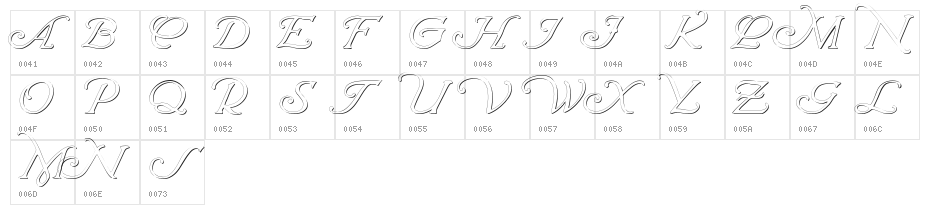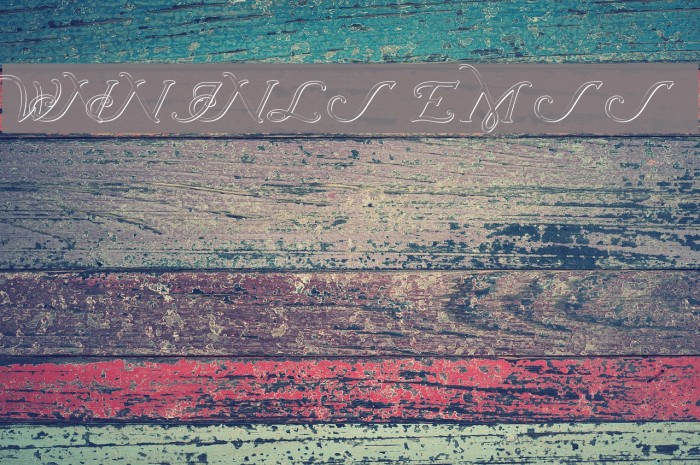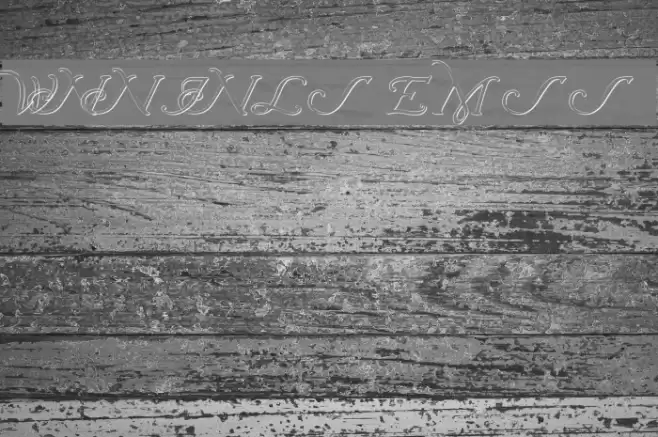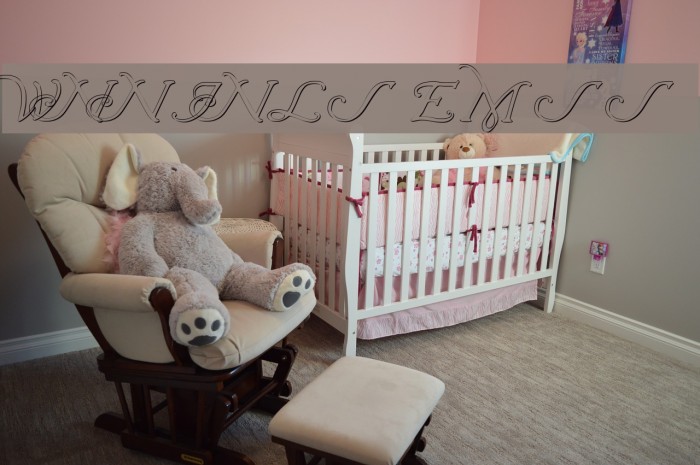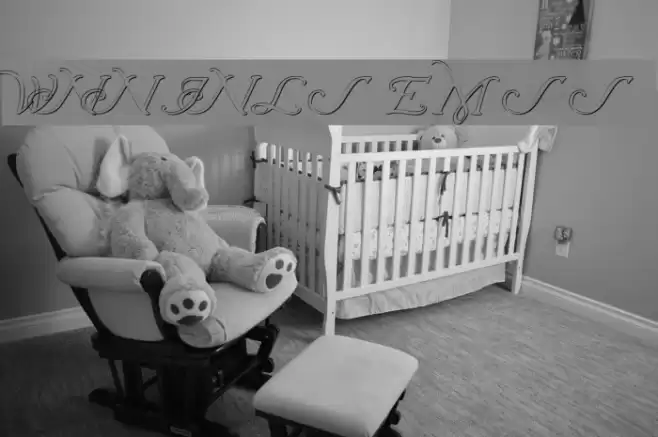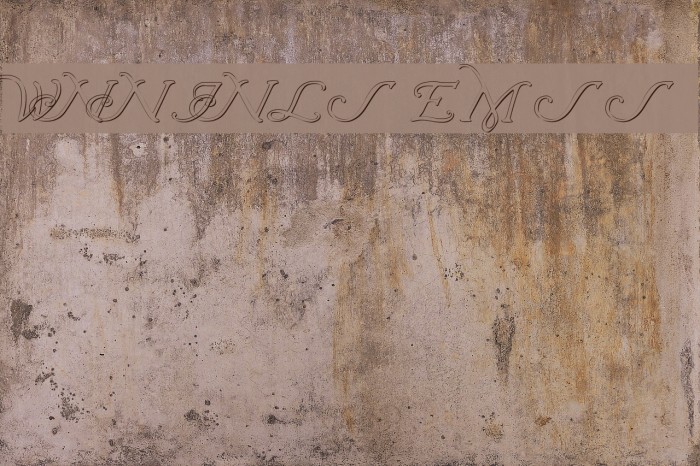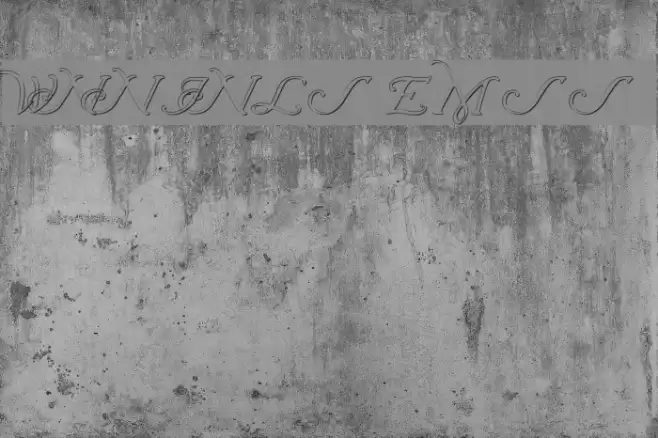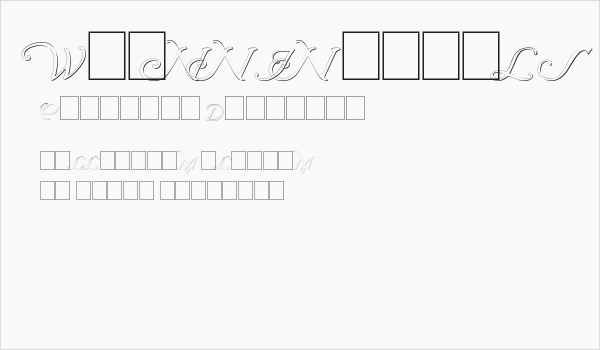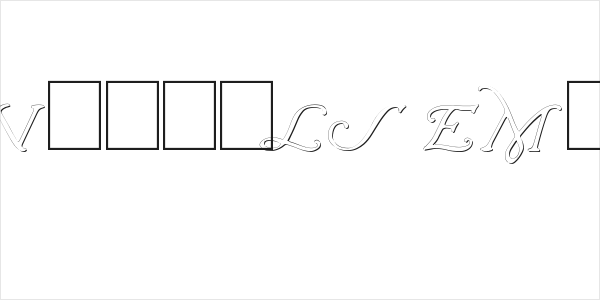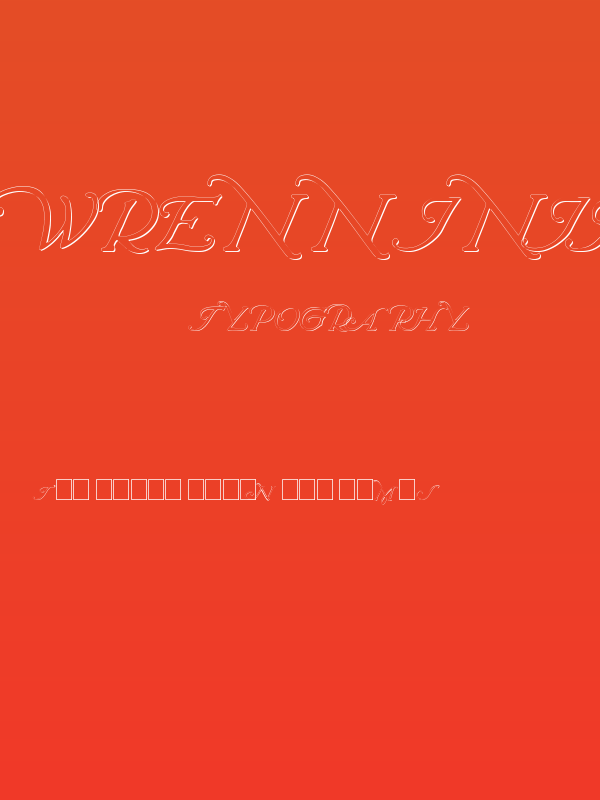
Wrenn Initials Embossed Font
This font features an elegant and sophisticated design with an embossed effect, giving it a three-dimensional appearance. The uppercase letters are adorned with intricate swirls and flourishes, adding a decorative touch that enhances its visual appeal. The strokes are moderately thick, providing a balanced contrast that makes the characters stand out. The overall style is reminiscent of classic calligraphy, with a modern twist that makes it suitable for contemporary designs. The font's unique characteristics make it ideal for projects that require a touch of elegance and refinement.
Overall StyleClassic, Decorative
Use CaseLogos, Invitations, Branding
Proposed ProjectsIdeal for wedding invitations, luxury branding, high-end product packaging, and elegant stationery.